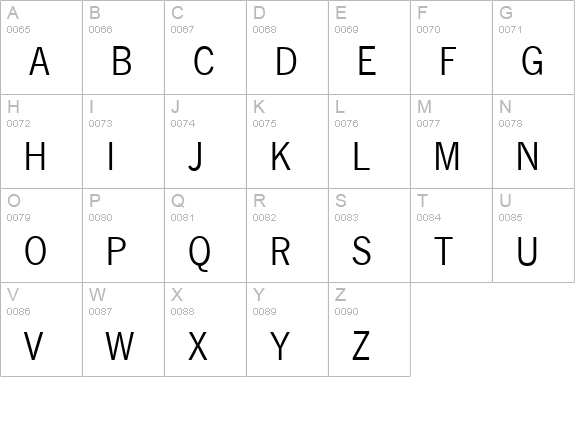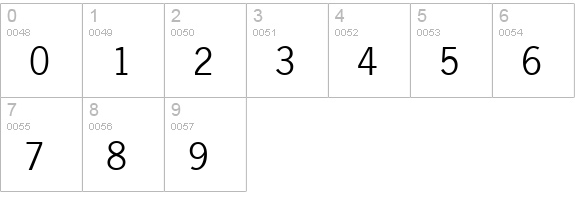
N691-Sans-Regular Font Details
N691-Sans-Regular is the standard, neutral variant in the N691 typeface family \xE2\x80\x94 well suited to general body text, paragraphs, and standard typographic work.